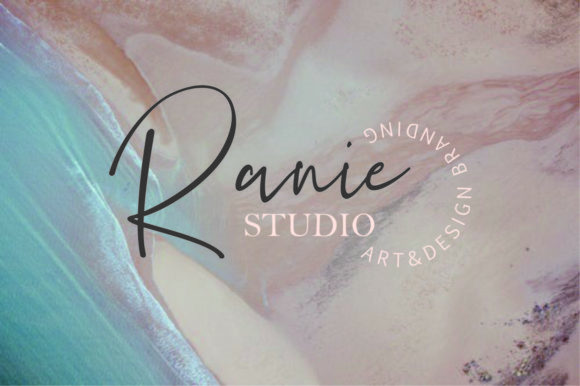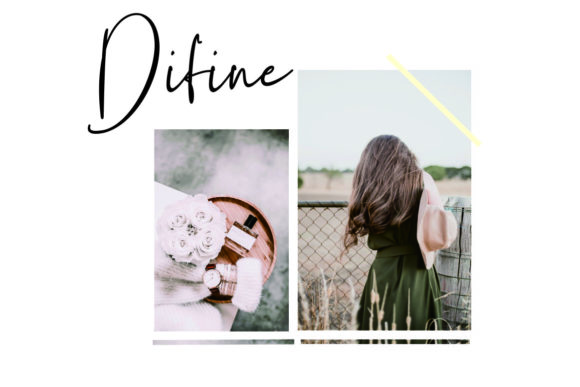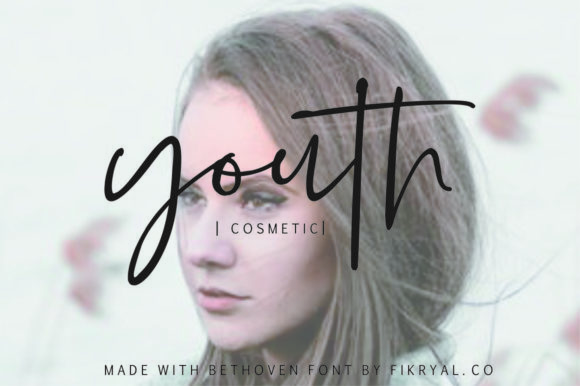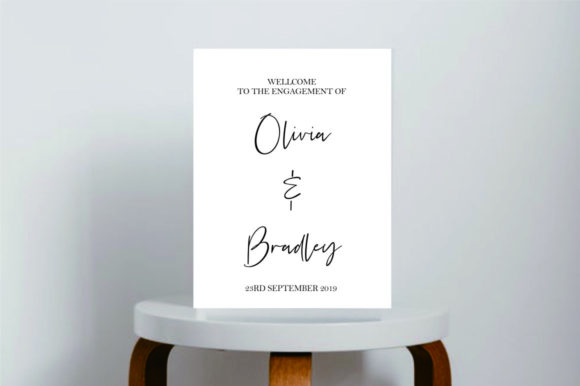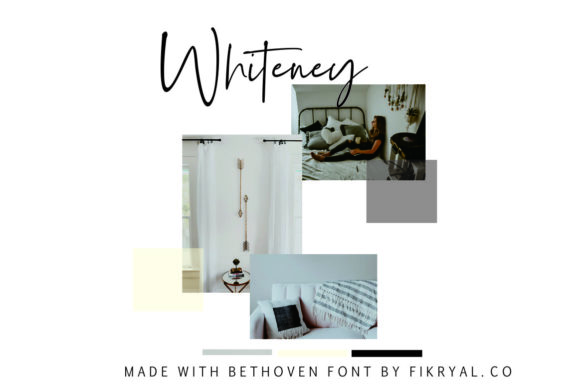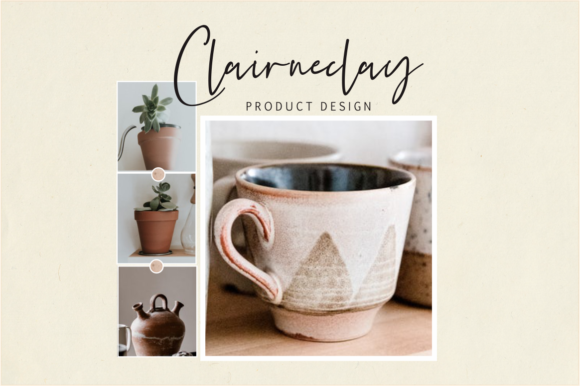
The Beethoven Font: A Cozy and Authentic Handwritten Delight
I’ll never forget the moment I stumbled upon the Beethoven font. I was working on a project for a client who wanted a warm and inviting aesthetic, but I was struggling to find the right font to capture that feeling. That’s when I discovered Beethoven – a light and elegant handwritten font with a contemporary twist. It was love at first sight! ✨
So, what makes Beethoven so special? Let’s dive into the good stuff and a few quirks I’ve noticed.
- ✨ Elegant and refined, yet approachable and friendly
- ✅ Perfect for projects that require a personal touch, such as invitations, branding, or packaging
- 💫 Soothing and calming to read, making it ideal for body text or captions
- 🎨 Highly versatile and pairs well with a variety of design styles
- ⚠️ Some letters, like the uppercase “Q” and “J”, might be a tad too ornate for certain design contexts
- 🤔 Limited availability of stylistic alternates, which might limit creative experimentation
The Designer Inspiration Behind Beethoven
According to its creator, Beethoven was designed to evoke the feeling of a cozy, handwritten journal entry. The designer aimed to craft a font that would feel both elegant and approachable, perfect for creative projects that require a personal touch. While the exact inspiration story might be fictional, it’s clear that Beethoven’s design was guided by a passion for beautiful, handwritten typography.
| Font Name | Bethoven Font |
| Author | Fikryal Studio |
| What makes Beethoven a great choice for creative projects? | Beethoven’s elegant and refined design, combined with its approachable and friendly feel, make it perfect for creative projects that require a personal touch. |
| How does Beethoven compare to other handwritten fonts? | Beethoven stands out for its unique balance of elegance and approachability. While other handwritten fonts may be more ornate or playful, Beethoven strikes a perfect balance between sophistication and warmth. |